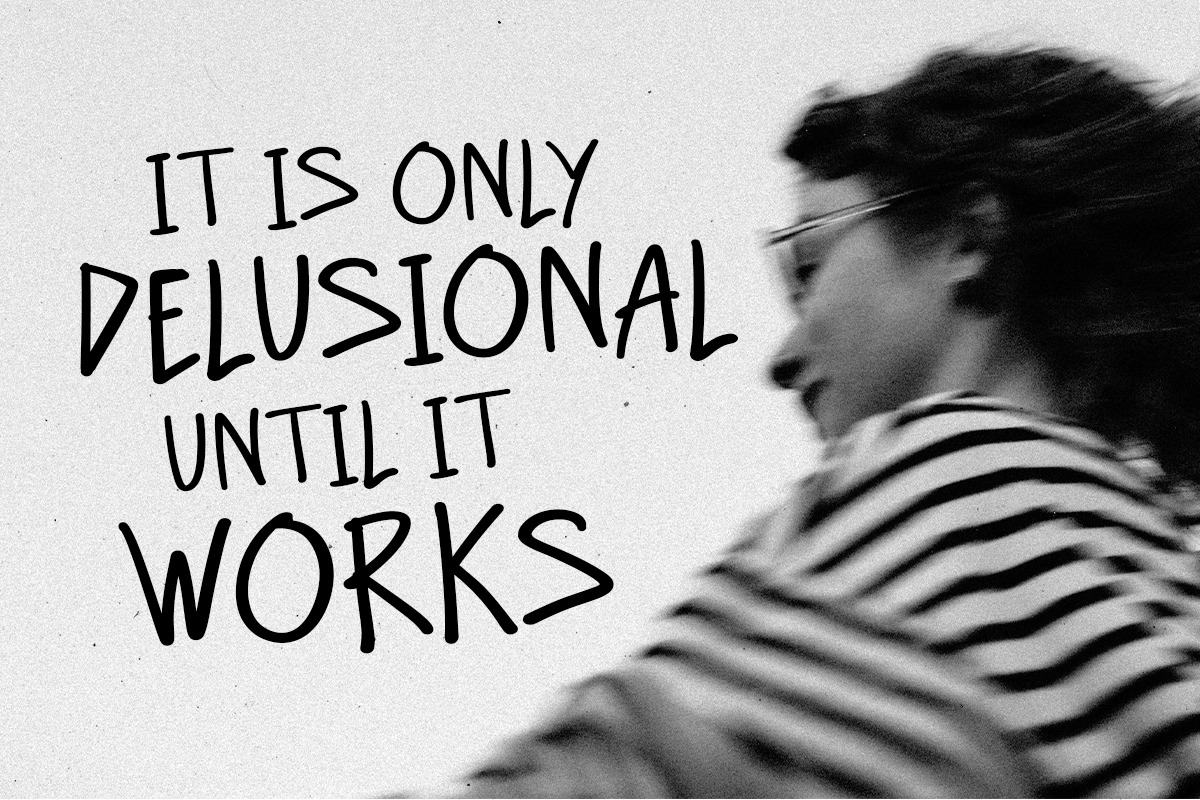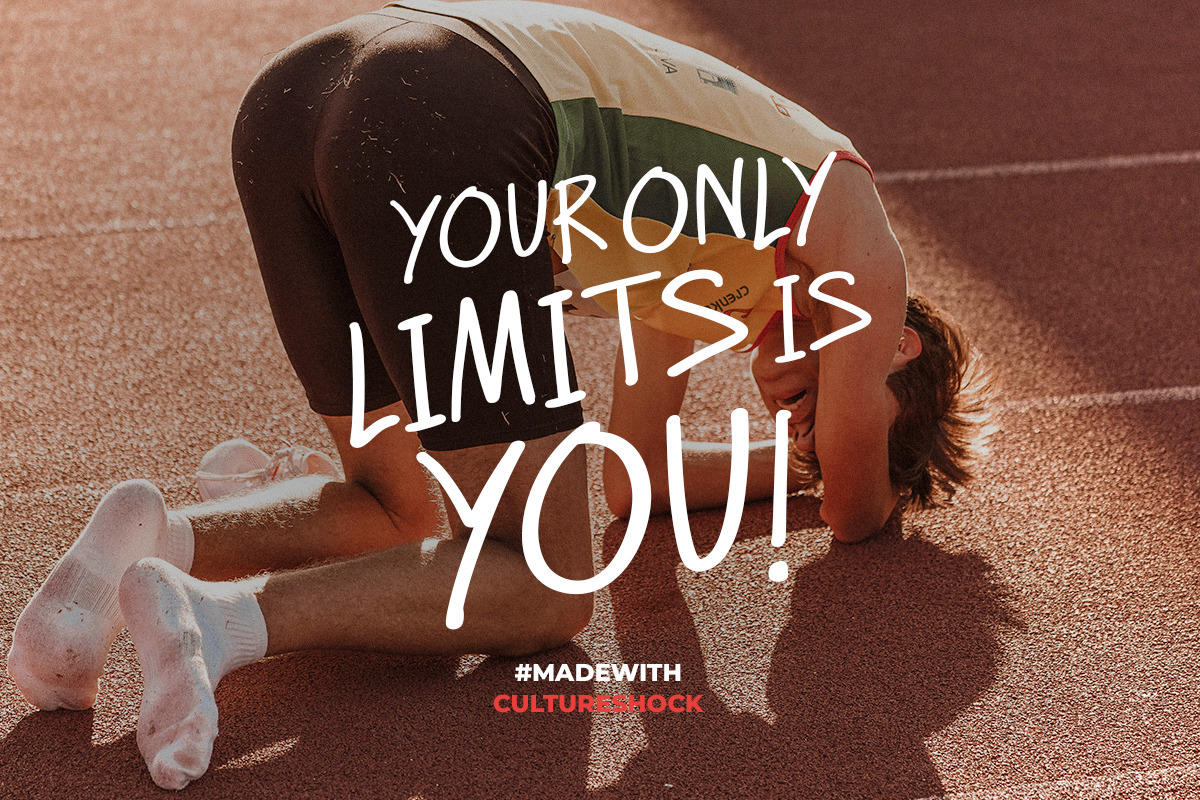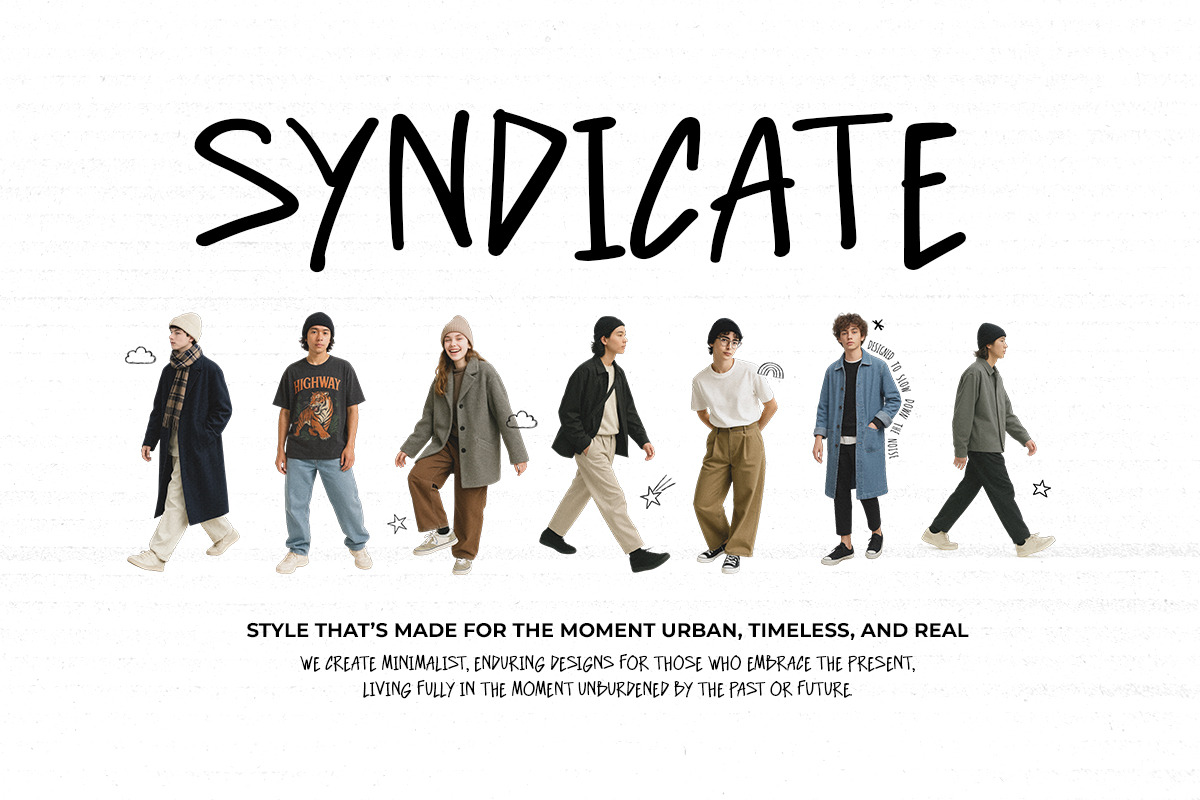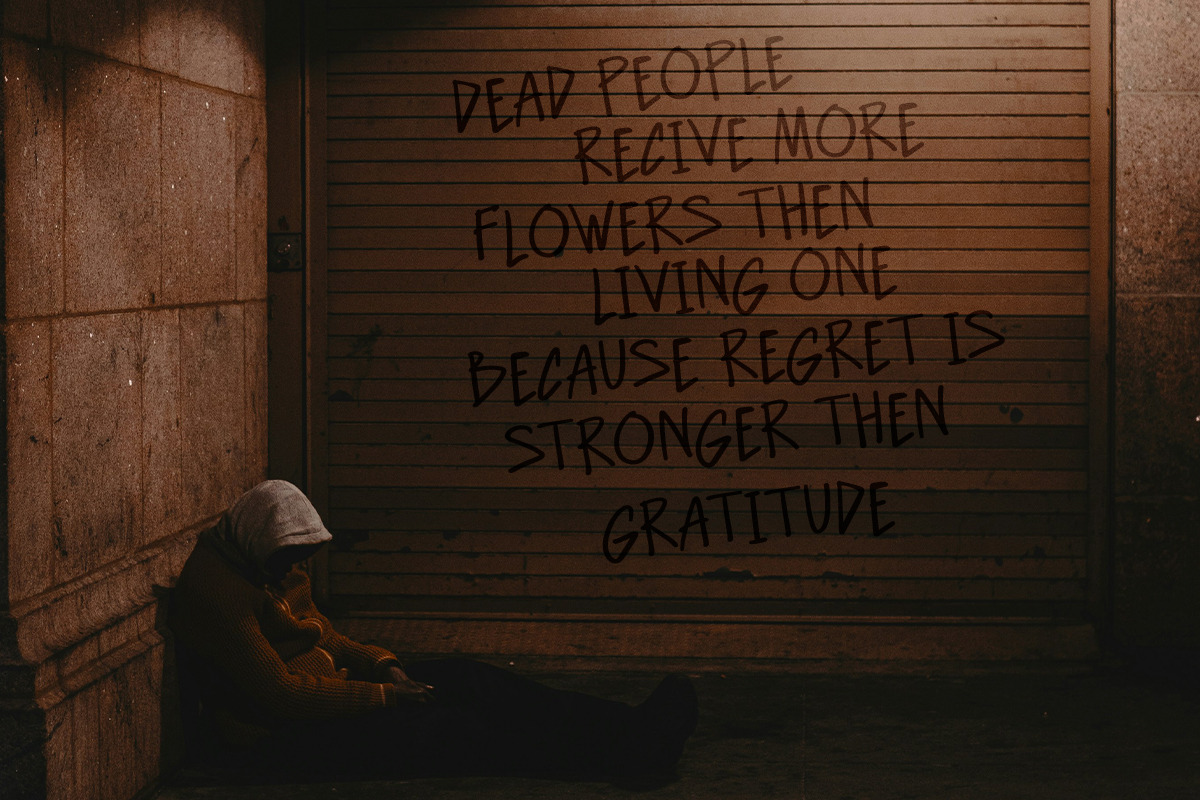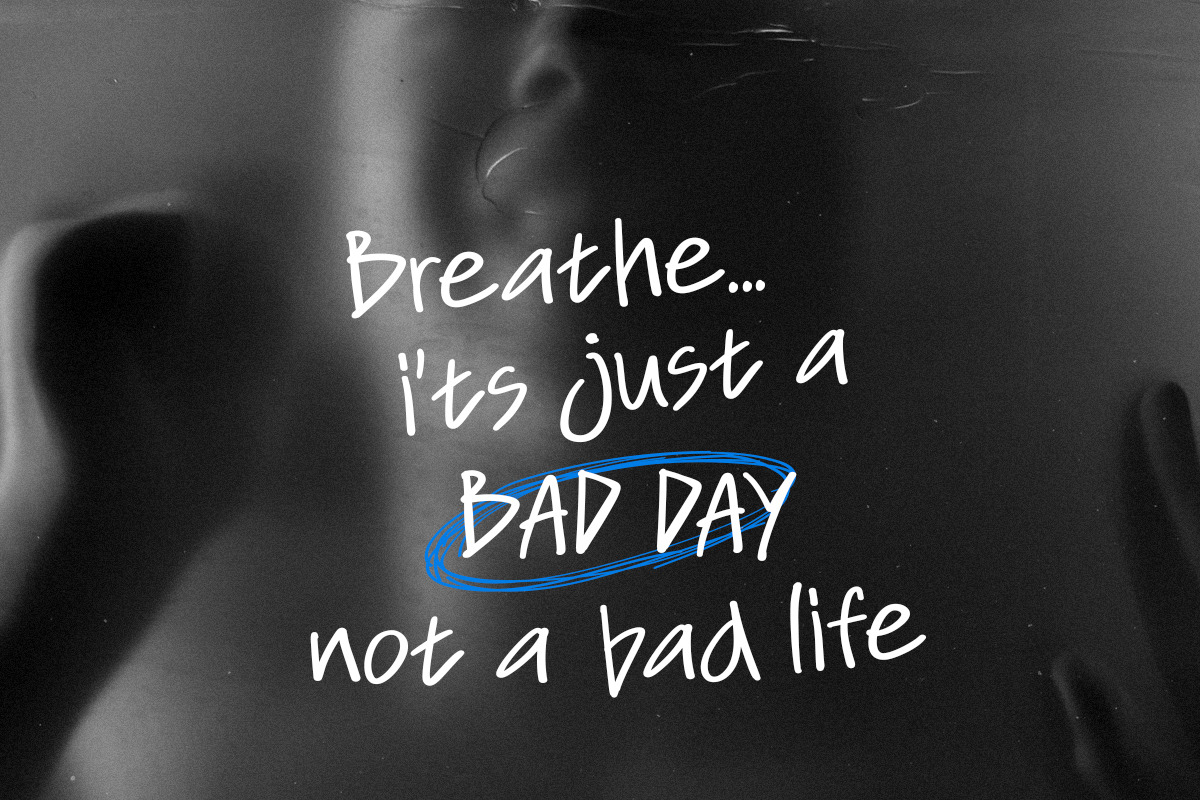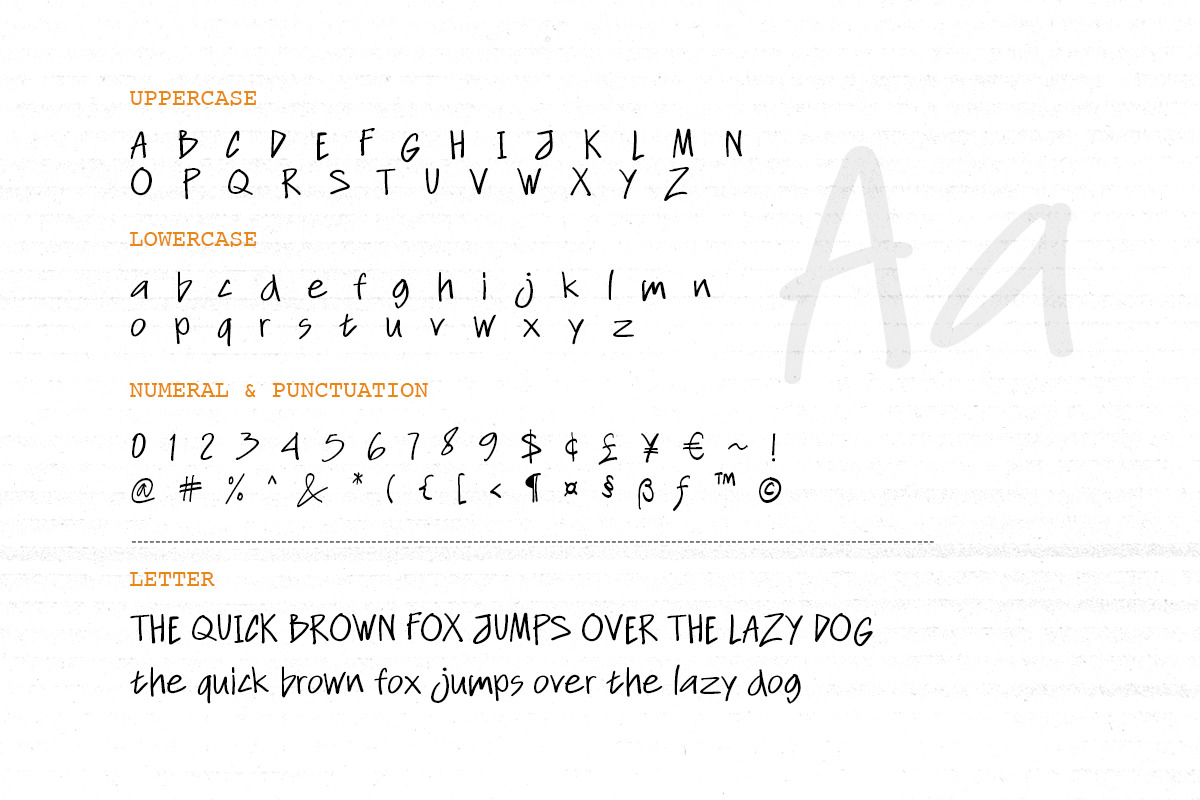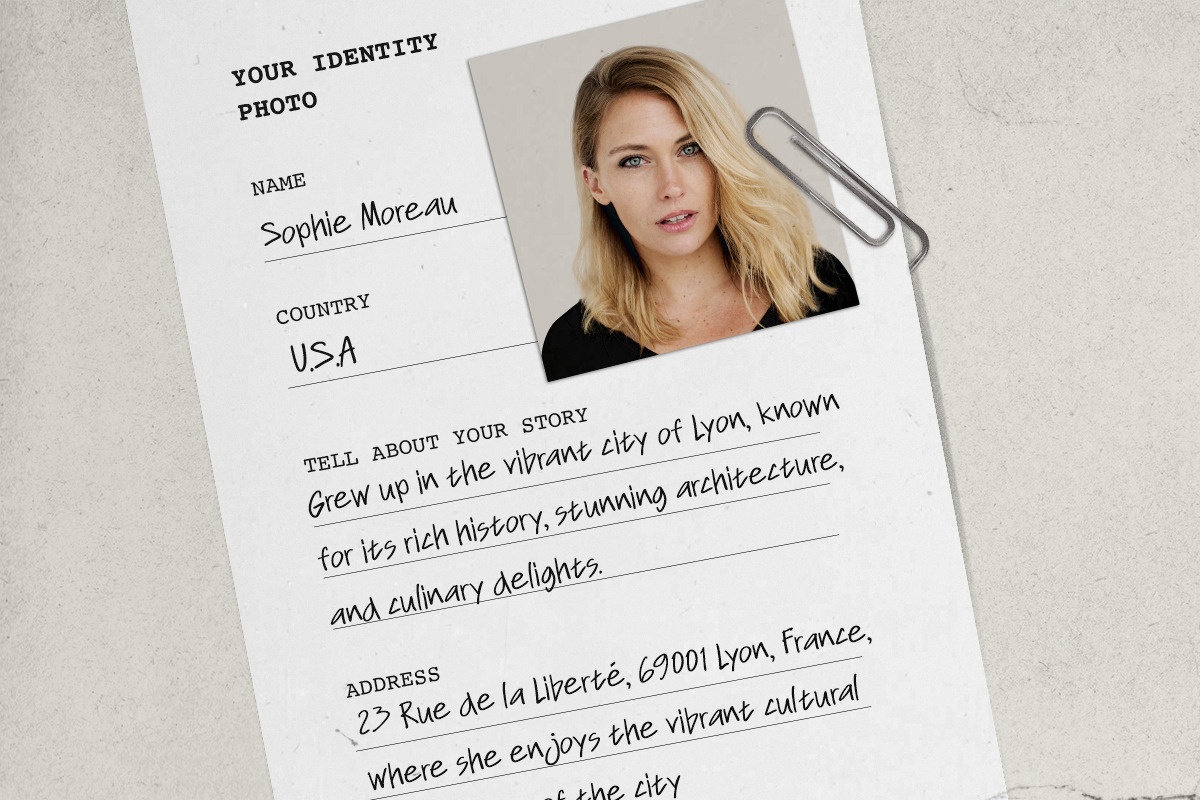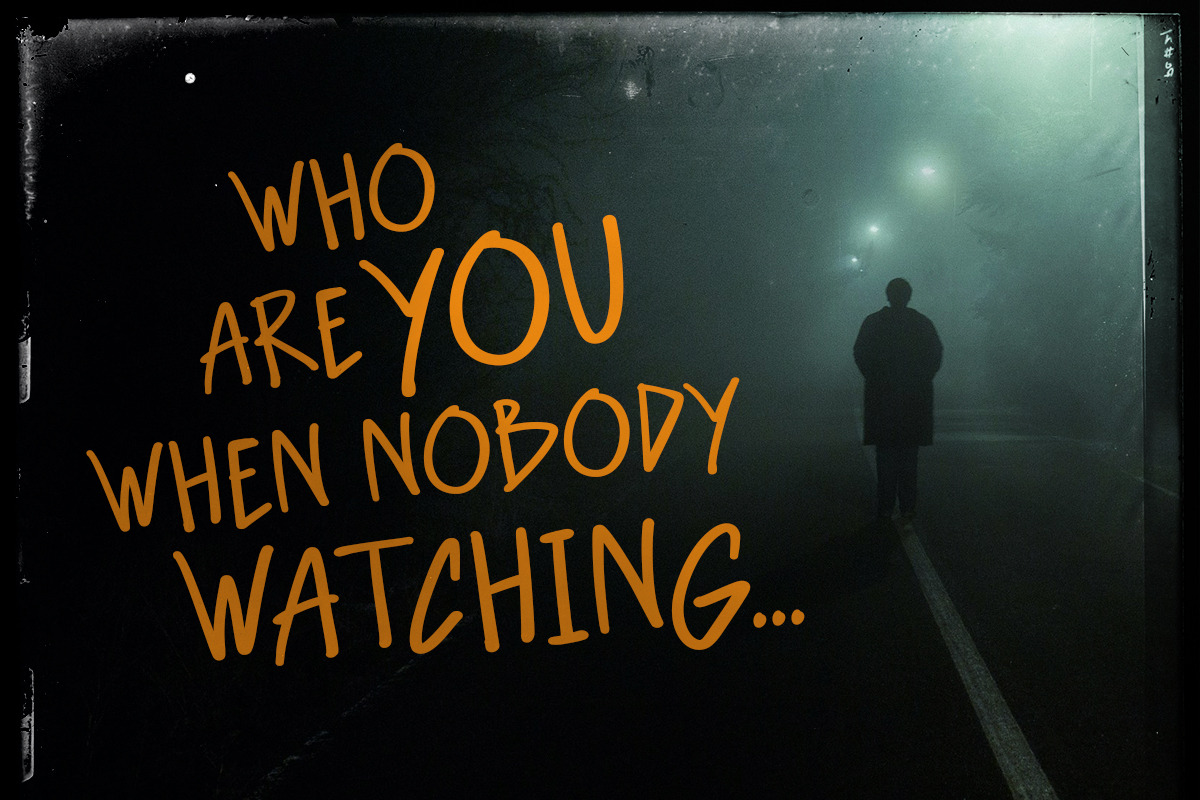
Culture Shock - Urban Handwritten
Culture Shock is a unique handwritten font with a messy, carefree style. Its imperfect strokes bring character and personality to any design, making it ideal for projects that need an authentic, urban feel. Whether for posters, logos, or creative branding, this font captures the essence of individuality and expression.